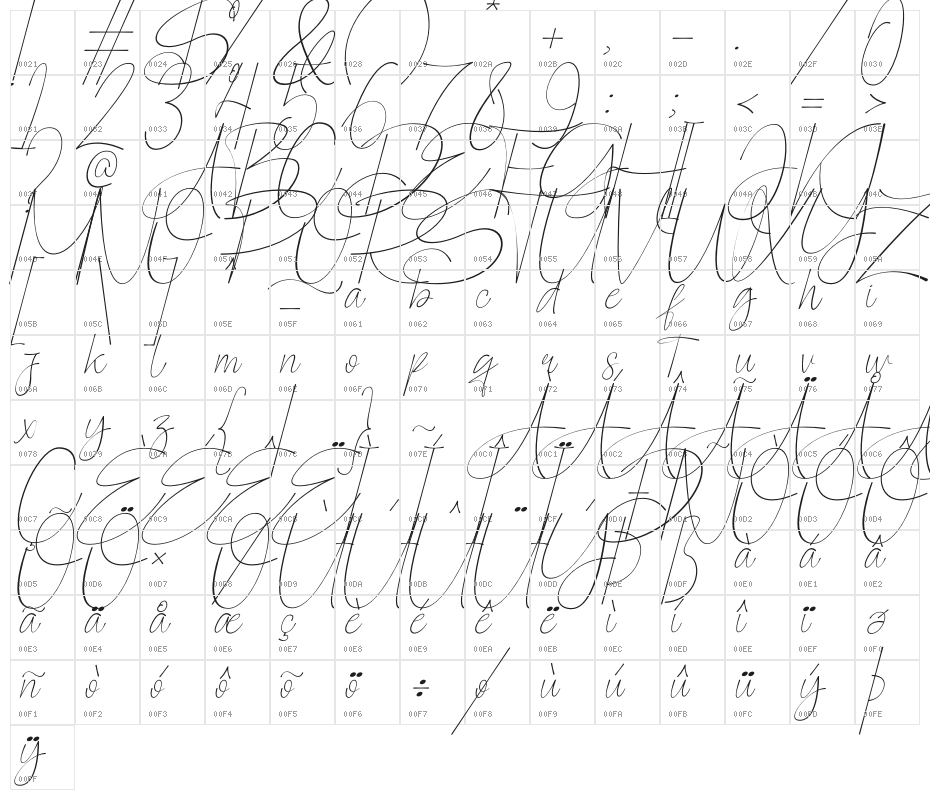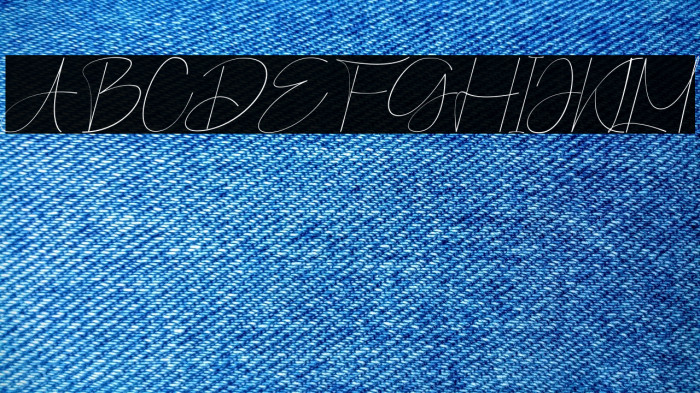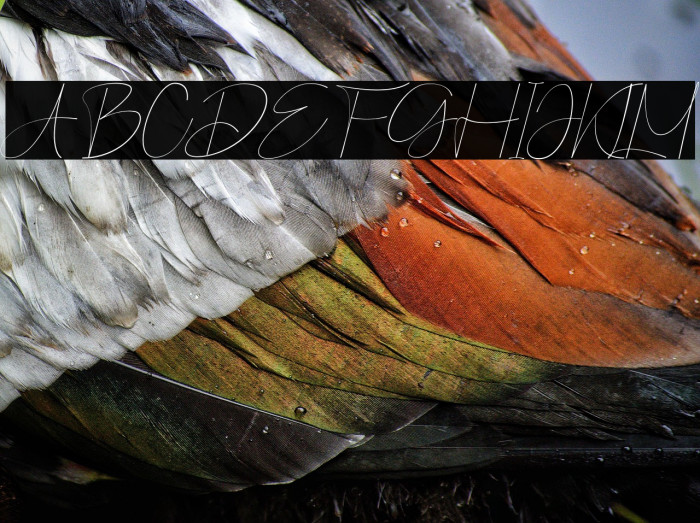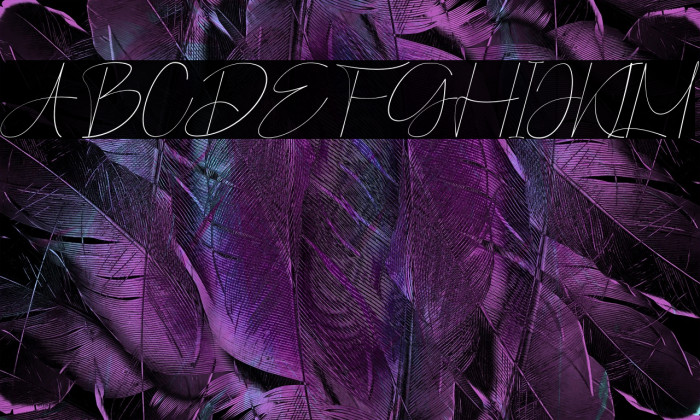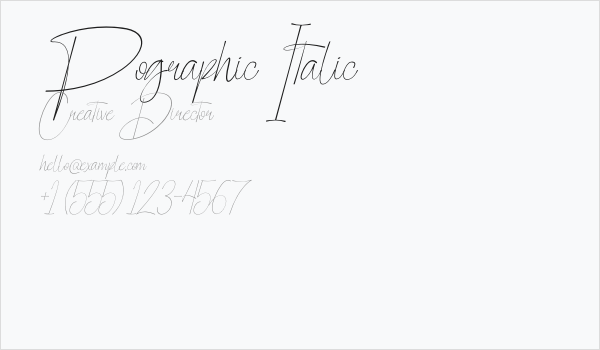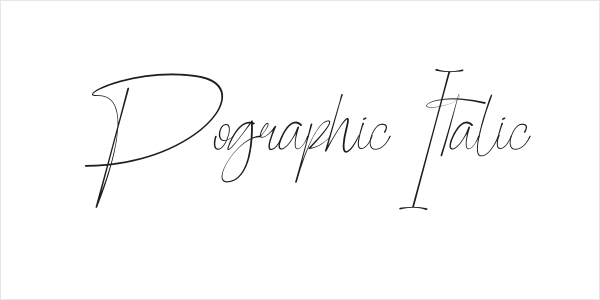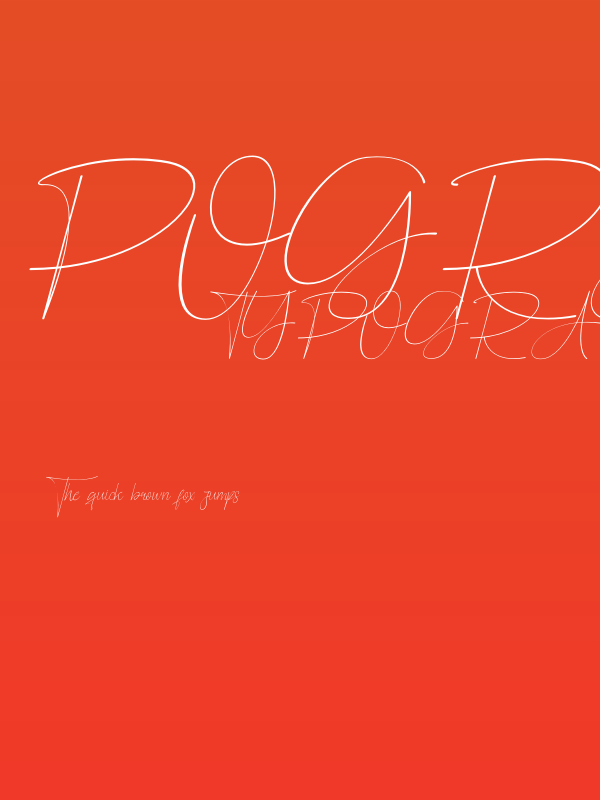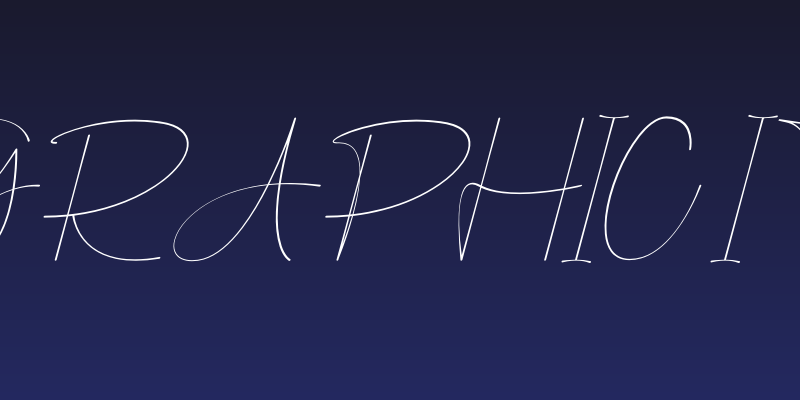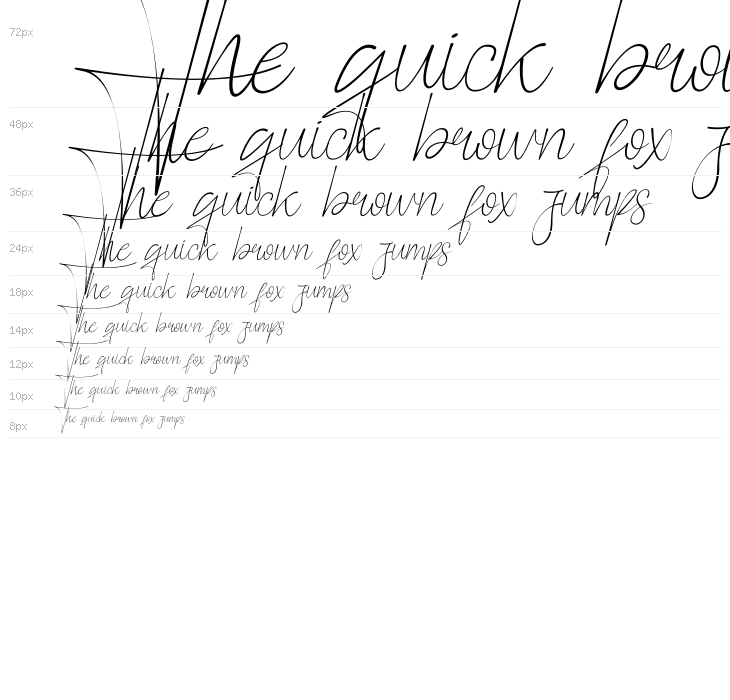
Pographic Italic Font
Pographic Italic Description
A delicate, highly slanted script font with thin, continuous strokes and a handwritten, calligraphic appearance. The characters are airy, with exaggerated ascenders and descenders, and a loose, flowing structure.
| Overall Style | Decorative, Elegant, Handwritten |
| Use Case | Logos, Invitations, Artistic headings |
| Proposed Projects | Wedding invitations, personal branding, elegant event posters, artistic quotes, signature-style logos. |